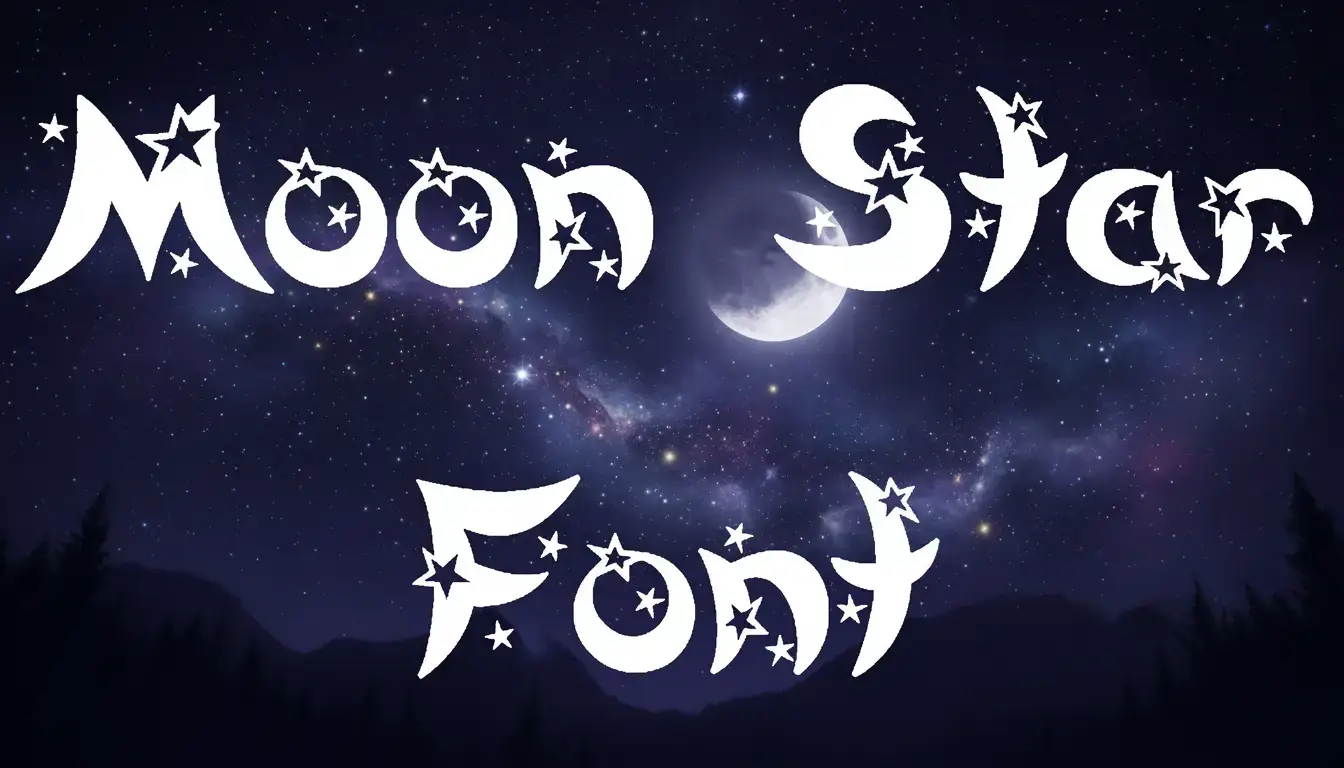
Moon Star Font
Moon Star
Moon Star is a fancy font. It's a decorative display font with plenty of personality, made to grab attention. It's a free download, and you can try it with your own text in the preview above first.
What You Can Type With Moon Star
Moon Star covers the full alphabet in upper and lowercase, plus all ten numbers, so you can set names, dates and prices without switching fonts. Everyday marks like &, !, ? and @ are there too. Thanks to its accented letters, it also works for Spanish, French, German, Portuguese and Italian, not just English.
Where Moon Star Works Best
Think of Moon Star for posters, logos and eye-catching headlines. Use it for one standout word or headline and let simpler fonts handle the rest.
Does Moon Star support accented letters?
Yes. Moon Star includes the accented letters needed for Spanish, French, German, Portuguese and Italian, so it works for more than just English.